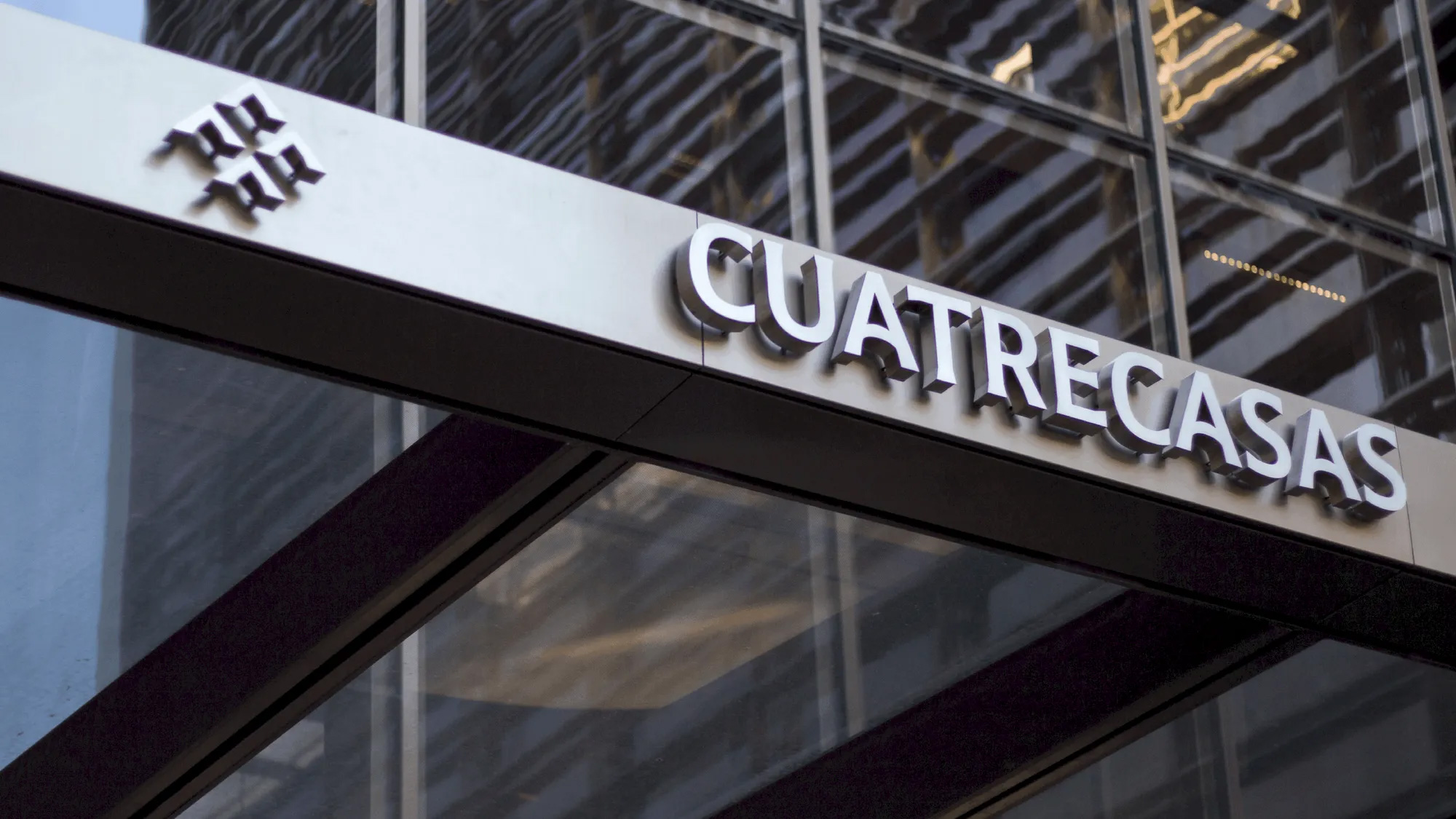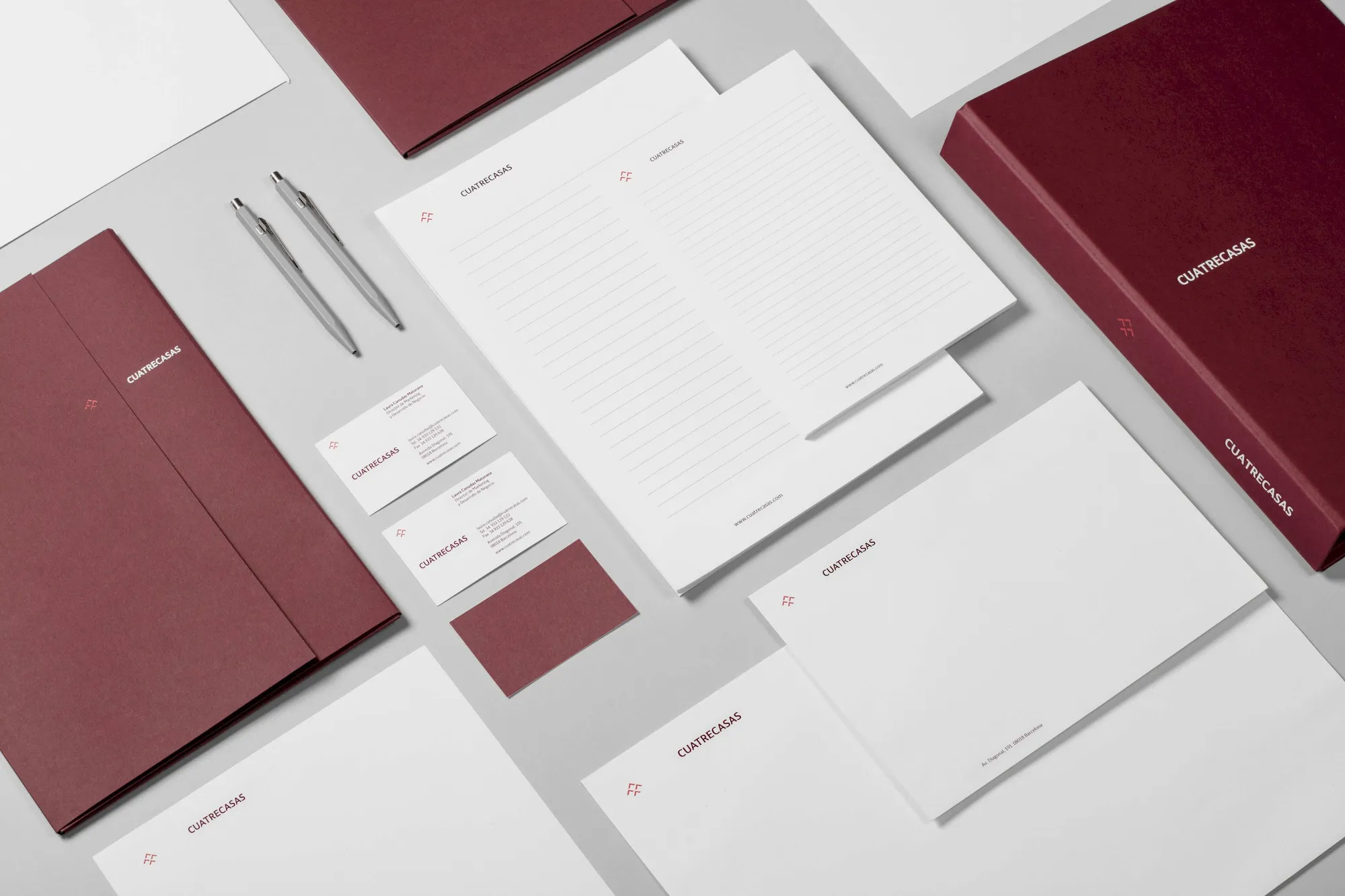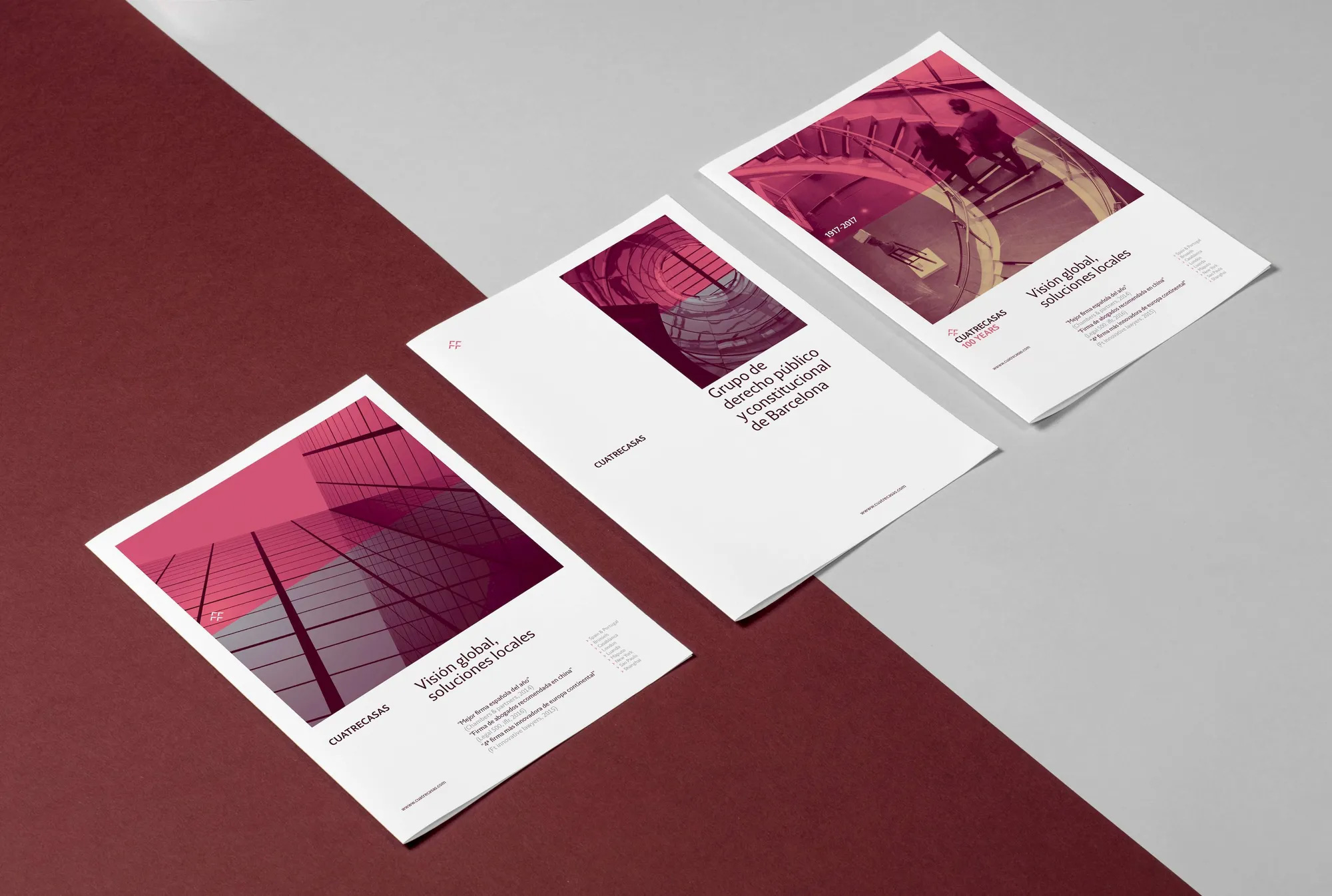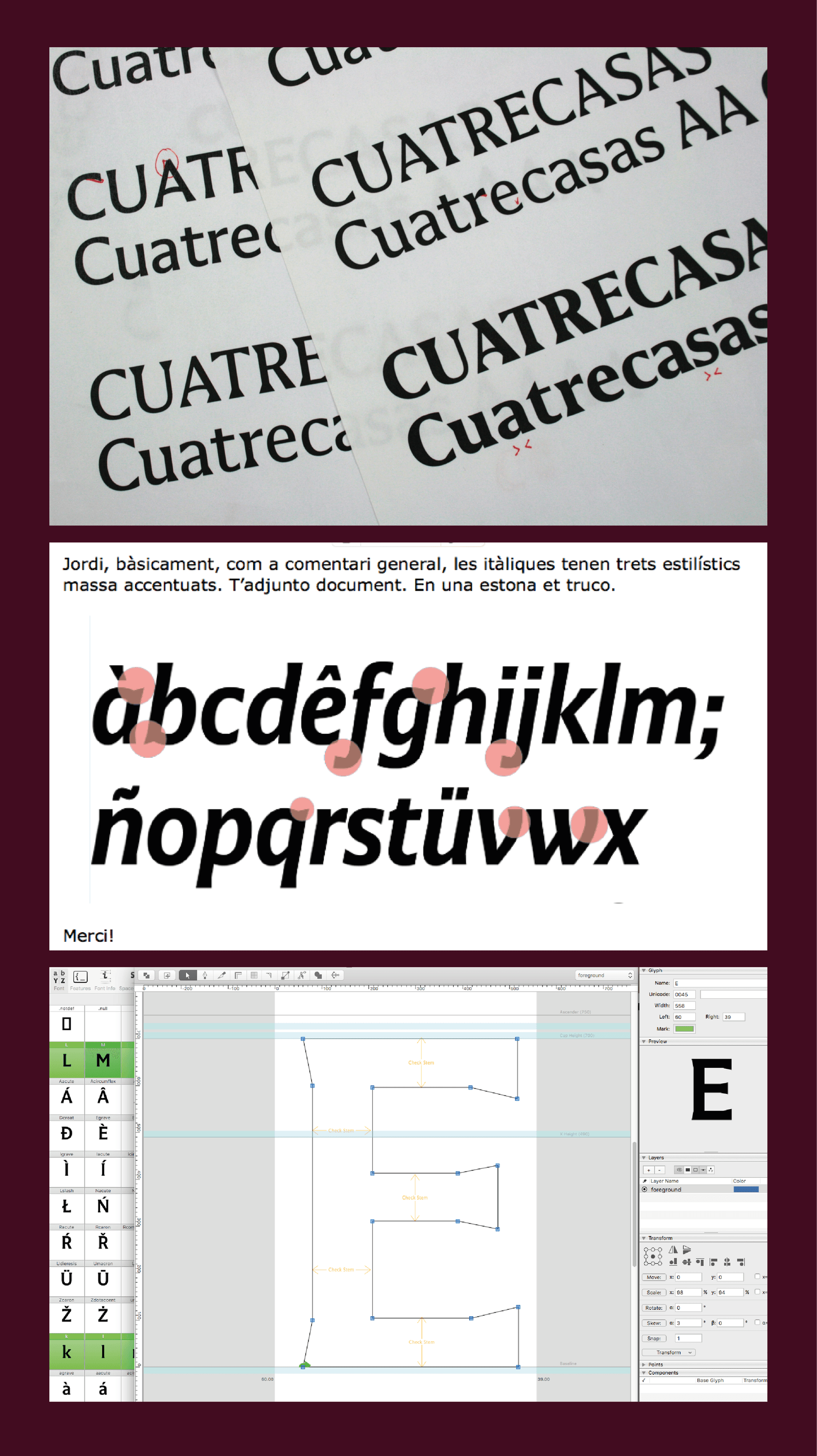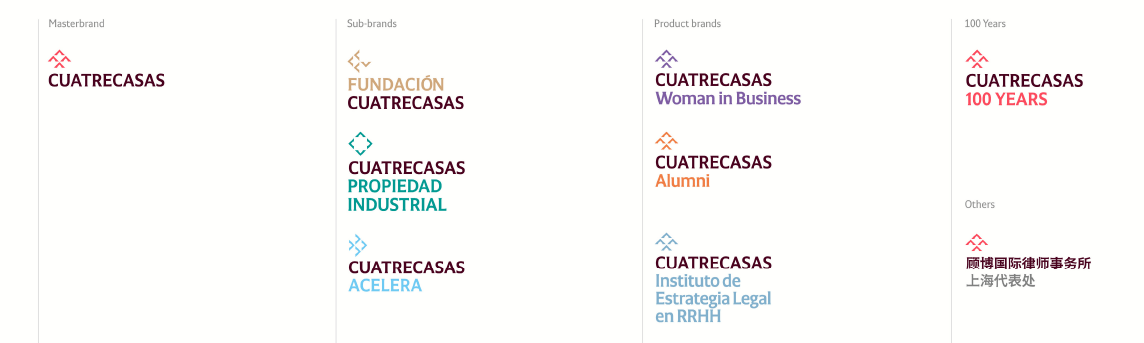
Cuatrecasas, with a century-old legacy in business law and a substantial international presence, sought to commemorate its 100th anniversary. Simultaneously, the firm aimed to leverage this momentous occasion to renew its brand identity and optimize its brand architecture in line with its ongoing international expansion. The choice of corporate colors, classic burgundy and new coral, and a unique sans-serif font added a distinct brand character to the firm’s identity.